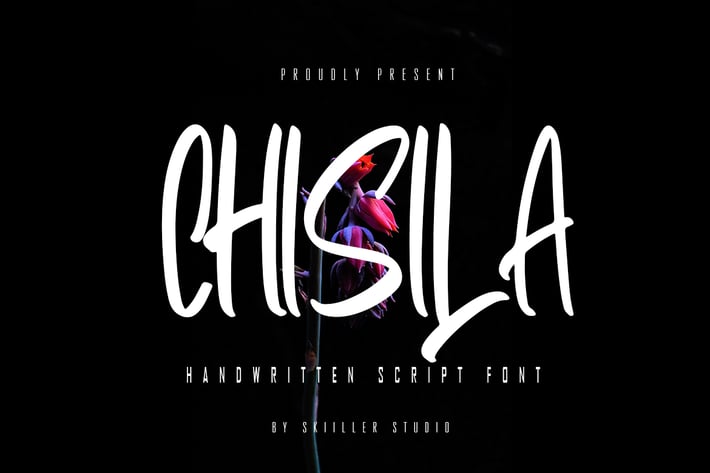
Chisila - Handwritten Script Font
Chisila is a modern and brushed handwritten font, crafted to give your headlines and logotype projects a stylish touch. This font reads as strong, confident, and dynamic and can add tons of urban character to your designs.